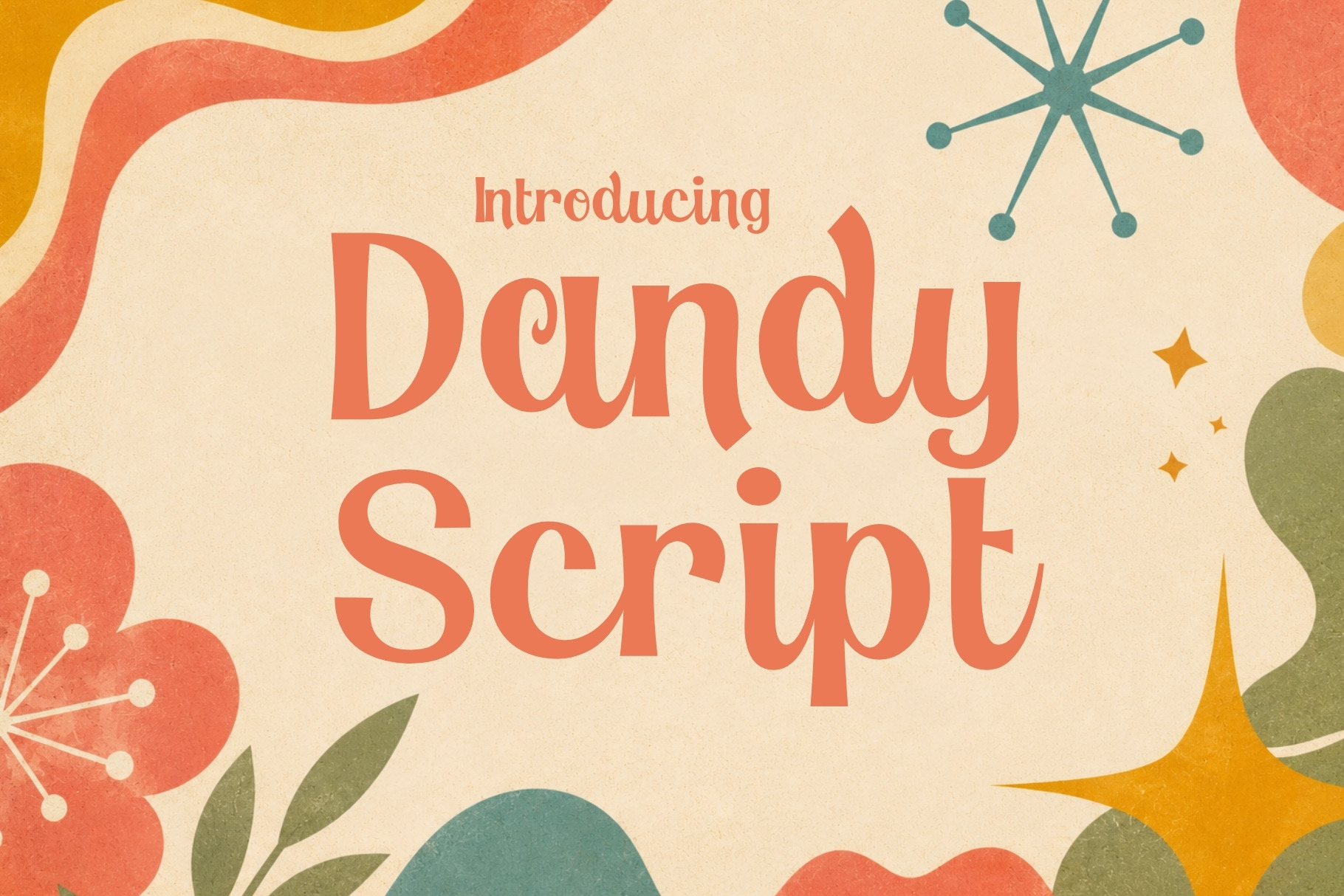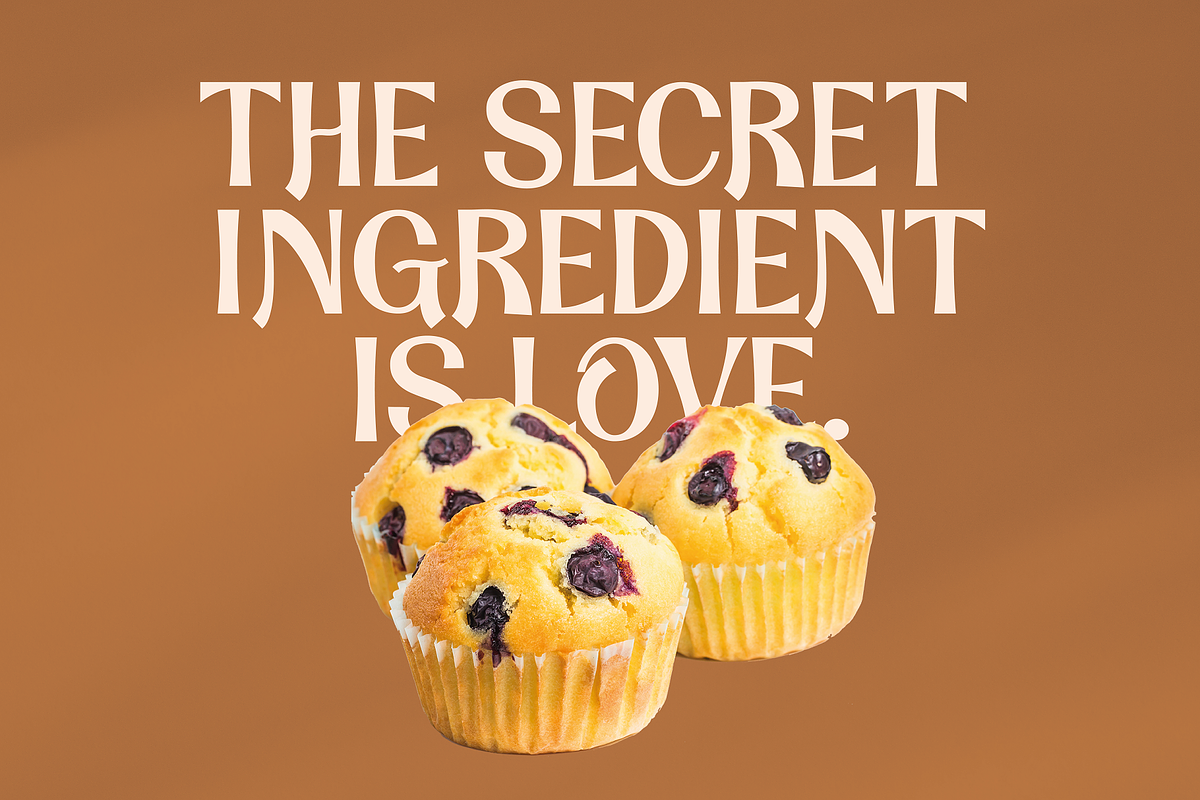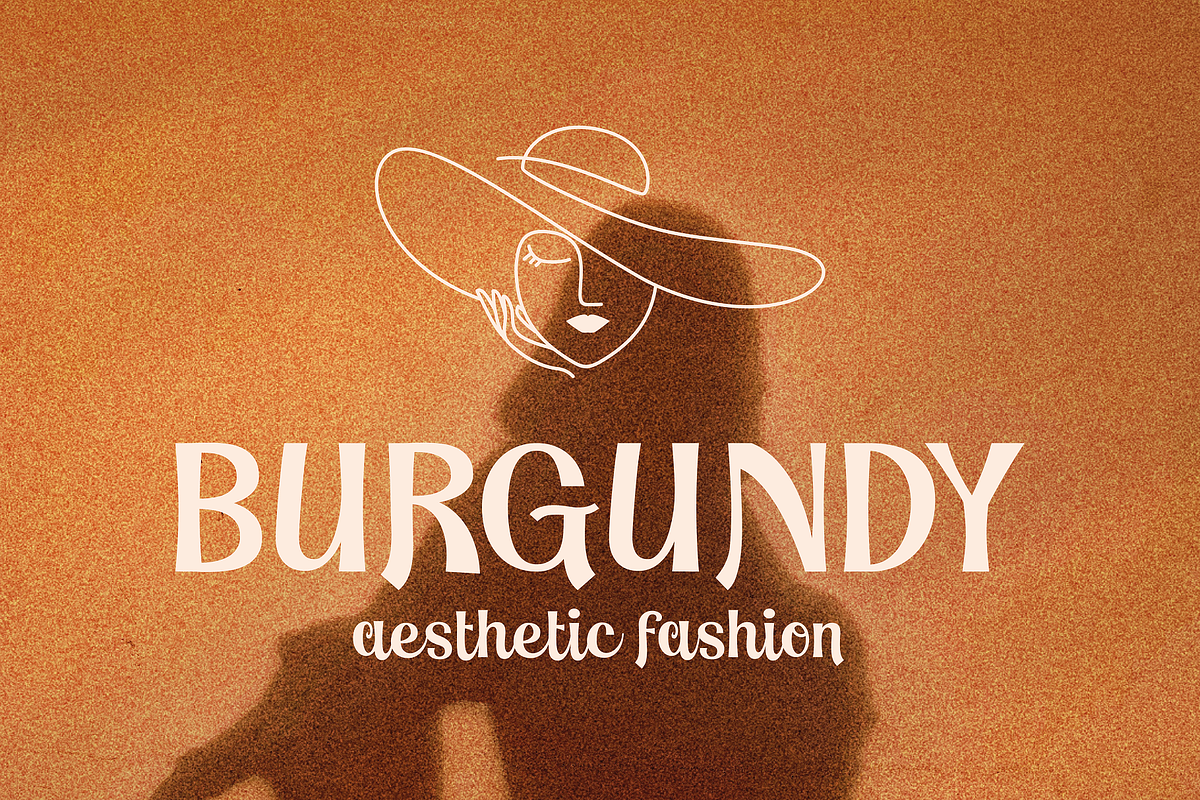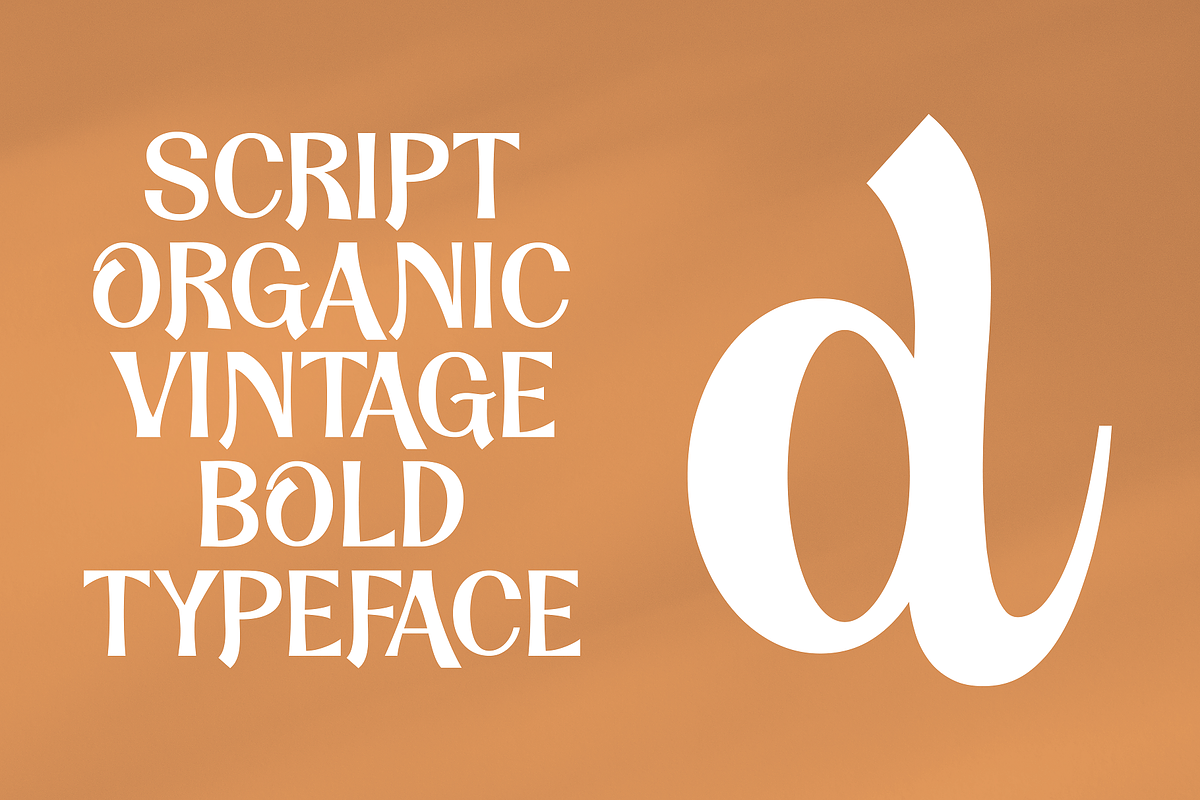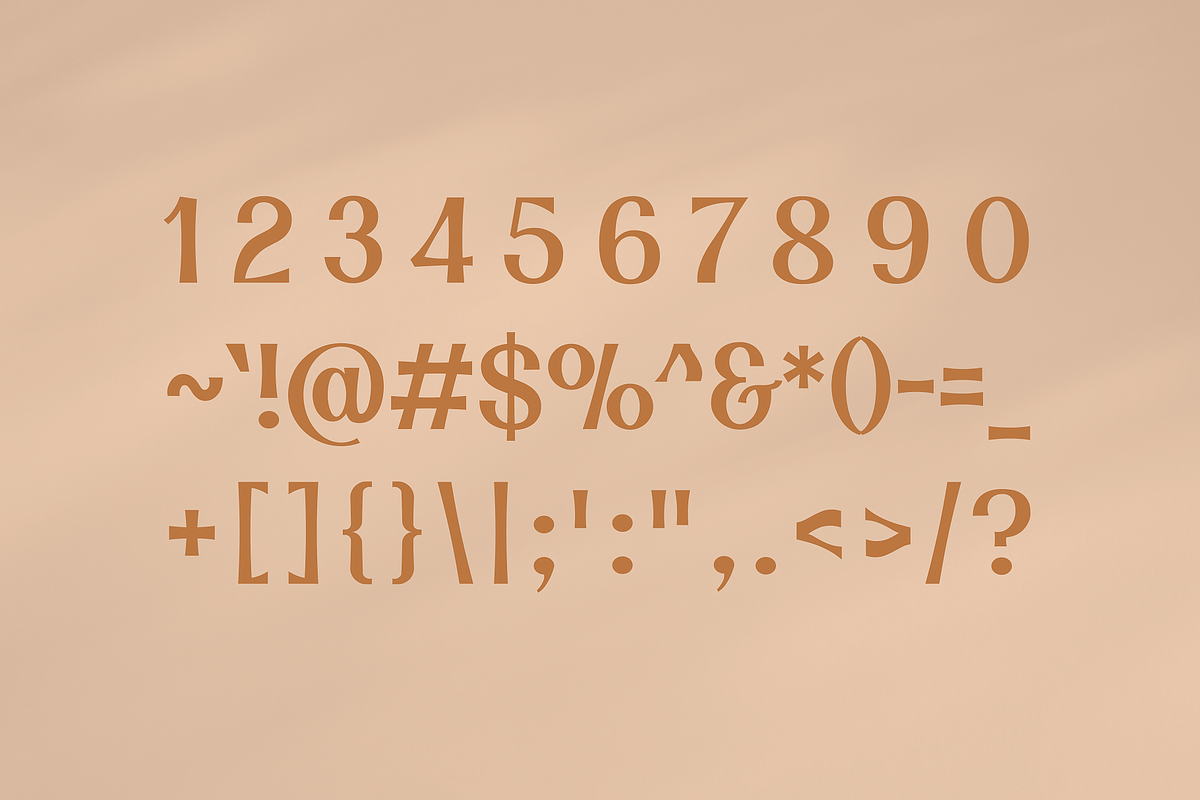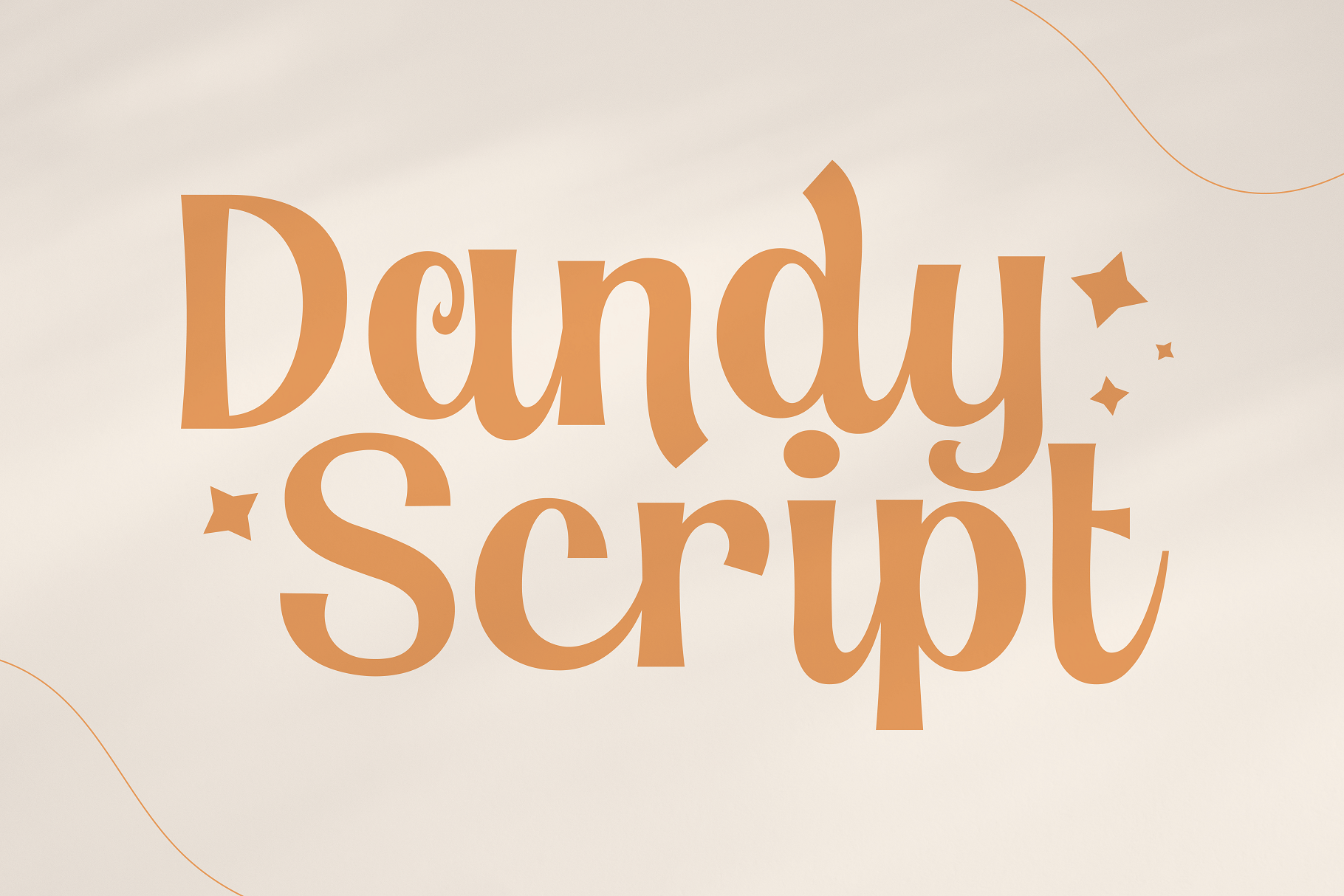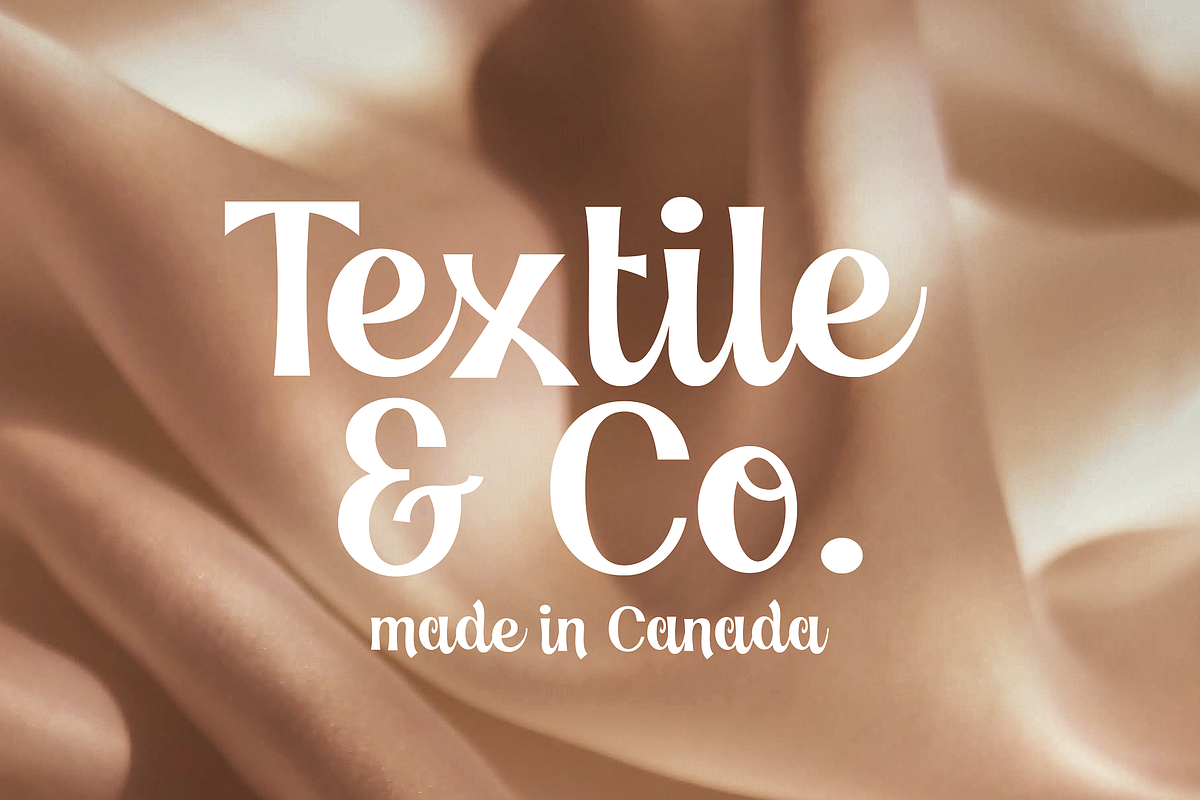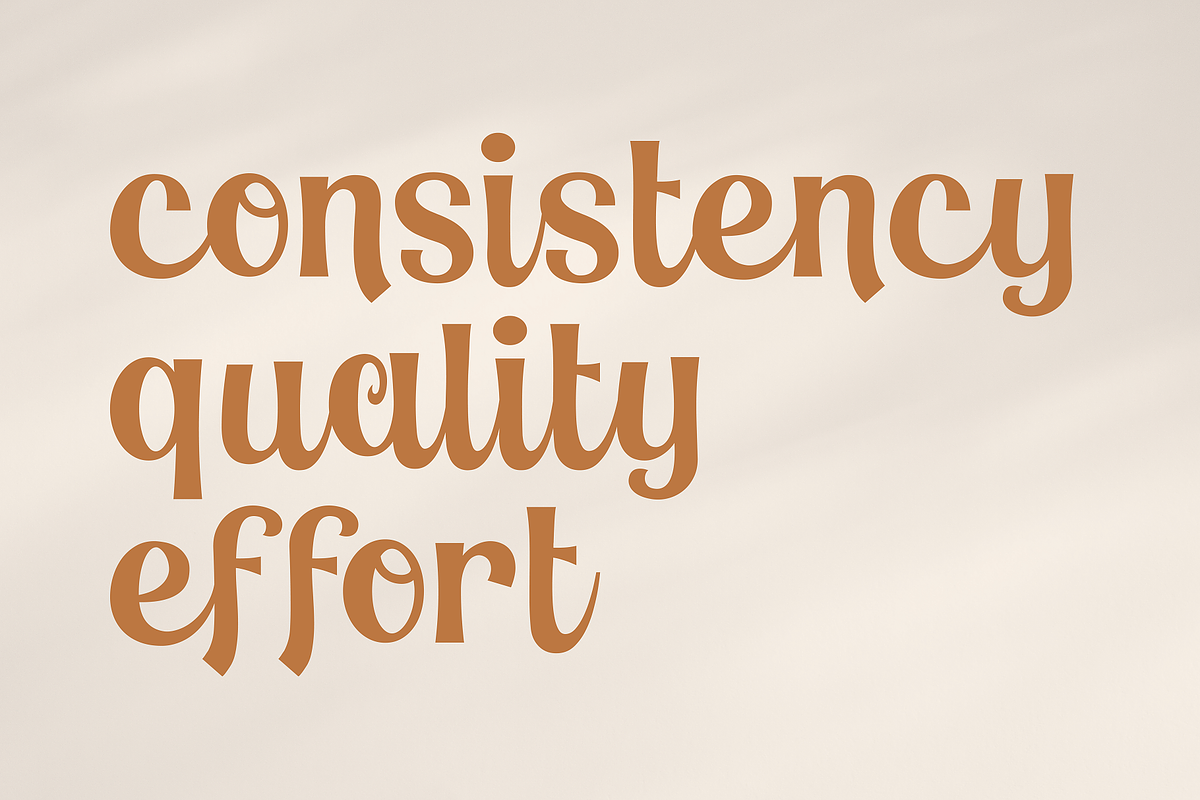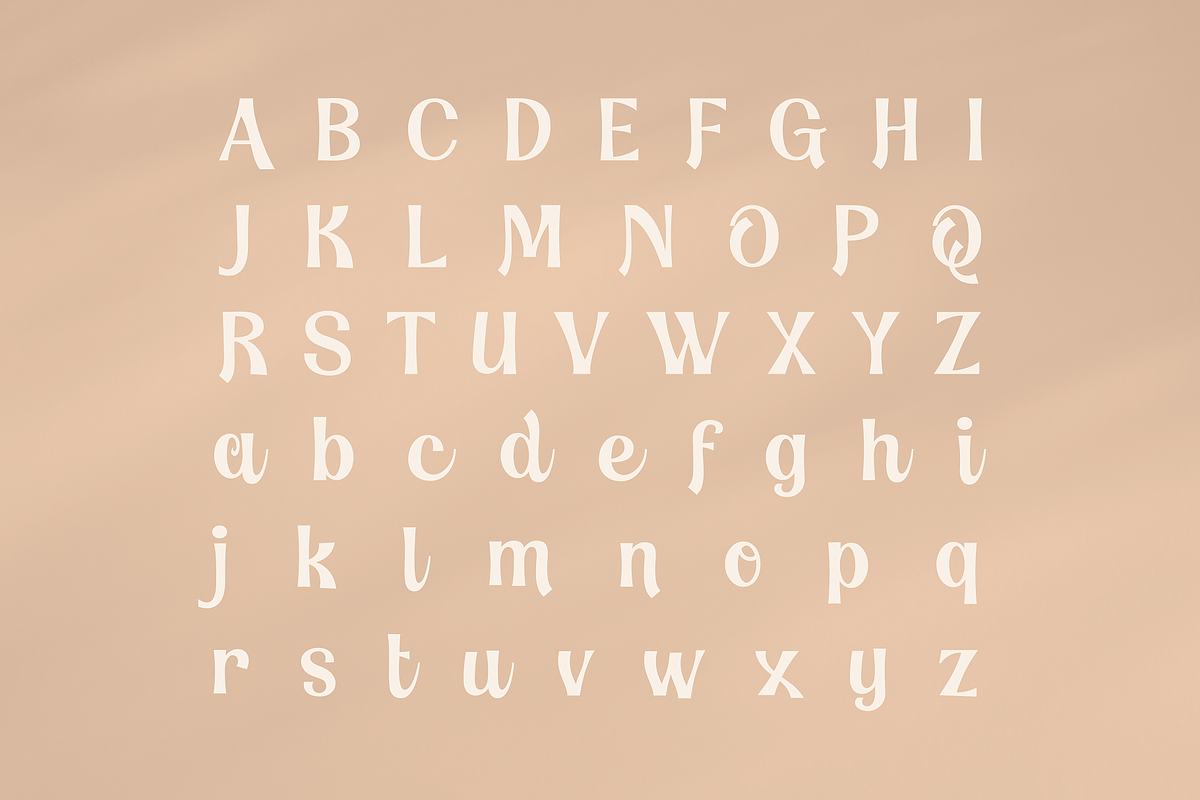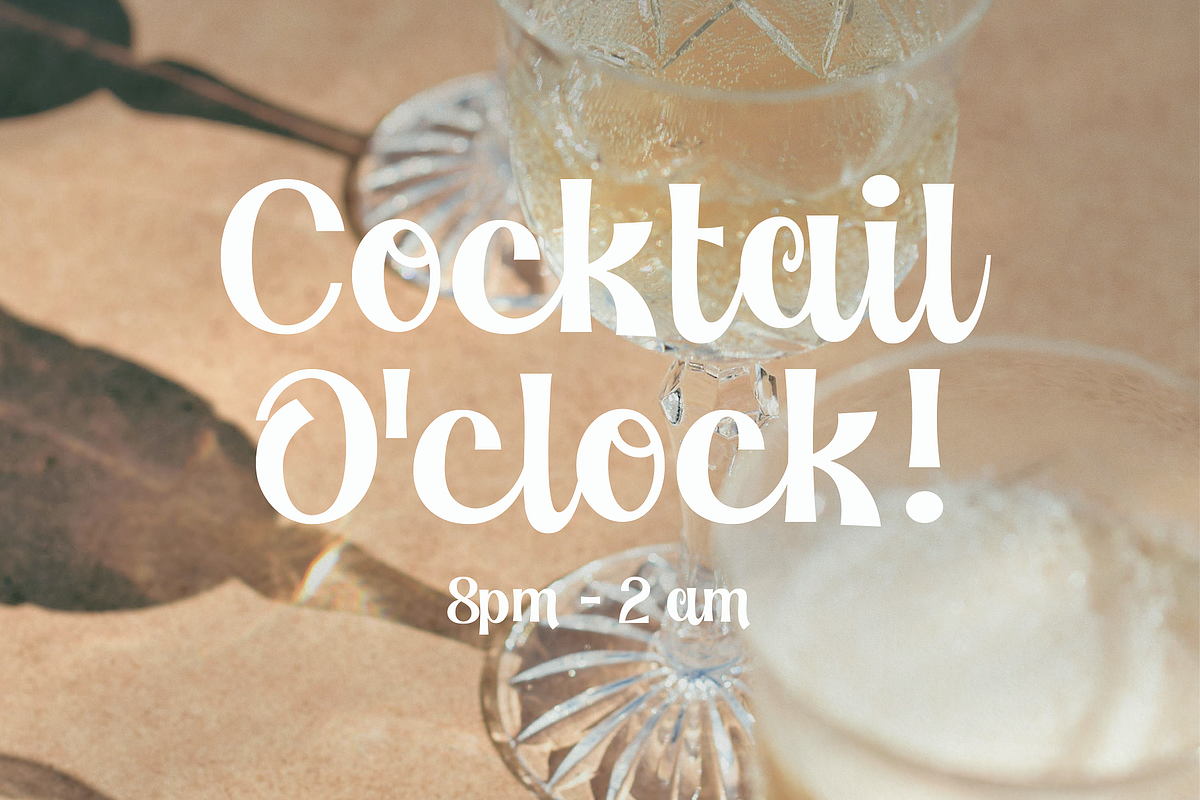
Dandy Script Typeface
Dandy Script is a stunning new typeface that blends classic elegance with contemporary flair. Its graceful, flowing lines and delicate curves make it the perfect choice for high-end designs that require a touch of sophistication.
With its modern twist on traditional script fonts, Dandy Script is both timeless and fresh, making it ideal for a range of creative projects. Whether used for invitations, branding, packaging, or other design applications, Dandy Script is sure to elevate any project with its refined and luxurious aesthetic.